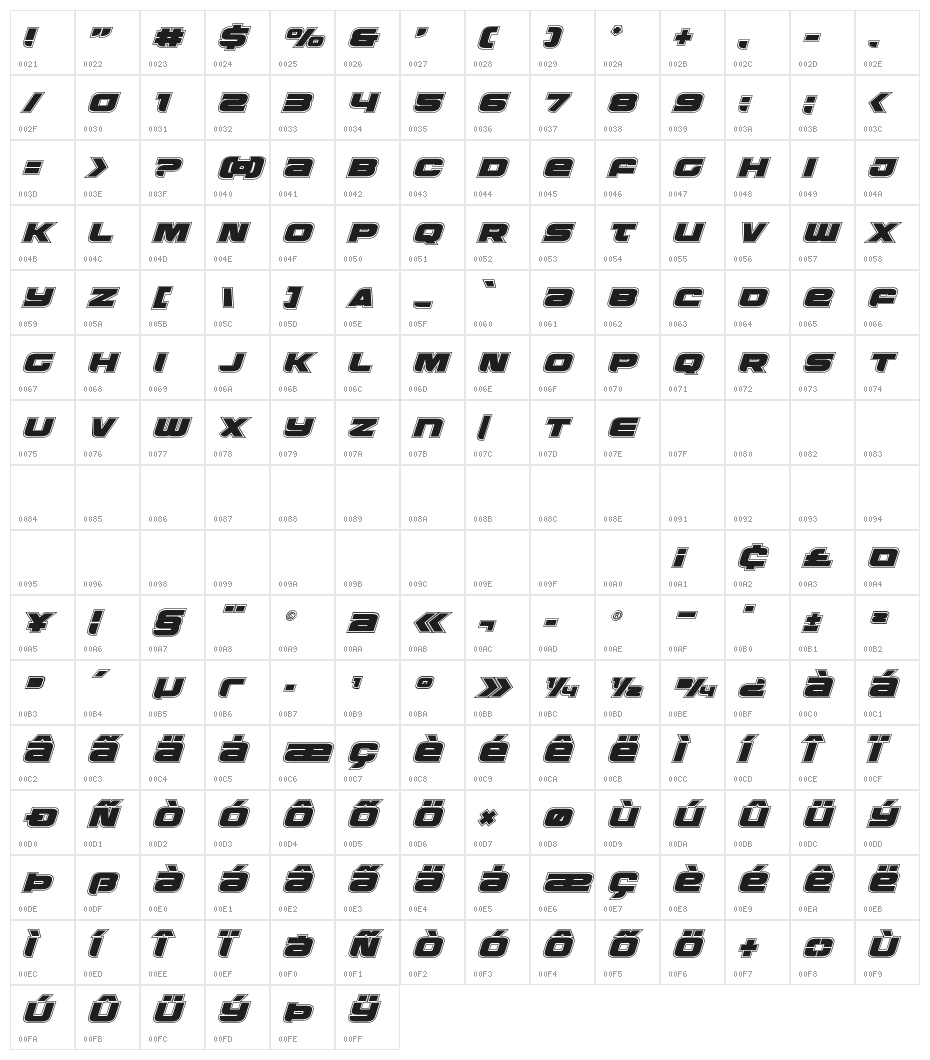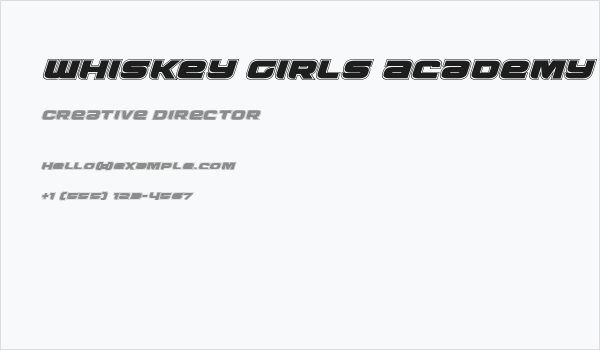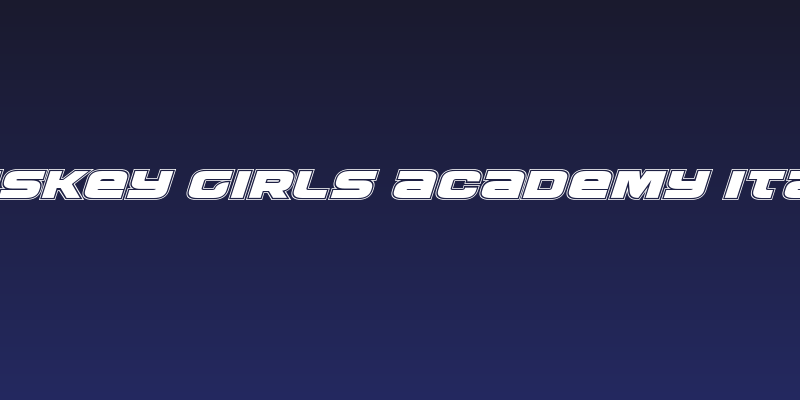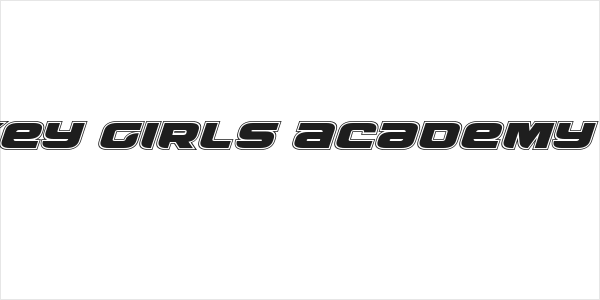
Whiskey Girls Academy Italic Font
Whiskey Girls Academy Italic Description
This font features a bold, italic style with a strong presence. The characters are outlined, giving them a three-dimensional effect that enhances their visibility and impact. The design is modern and dynamic, with a slight slant that adds a sense of motion and energy. The uppercase and lowercase letters maintain a consistent style, ensuring readability and uniformity across different text sizes. The numerals and special characters are designed to match the overall aesthetic, making this font versatile for various applications.
| Proposed Projects | Ideal for sports branding, dynamic posters, and modern advertising campaigns. |